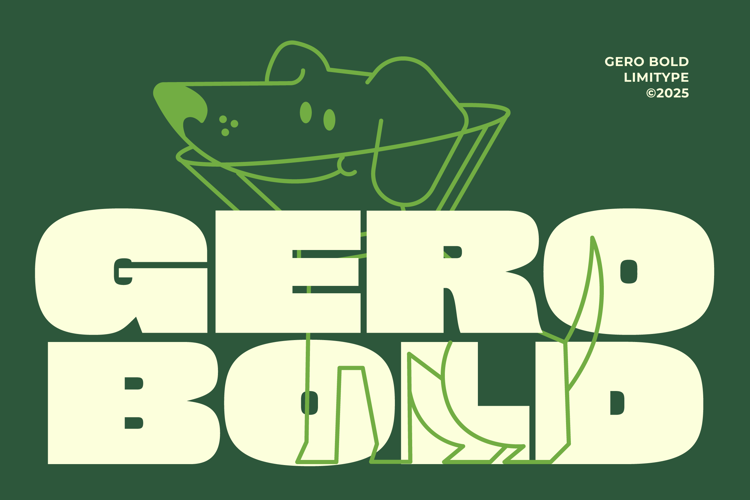
Gero - Bold Font
Gero is a bold and chunky font with a strong and striking display style. Its dense, Solid letterforms give a modern and confident impression. Perfect for posters, logos, titles, food designs, or any creative project that wants to look bold, powerful, and memorable.